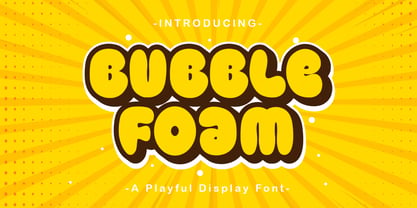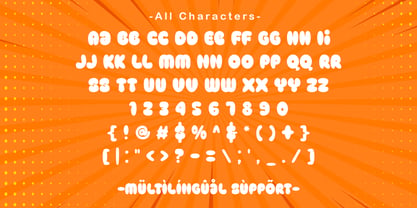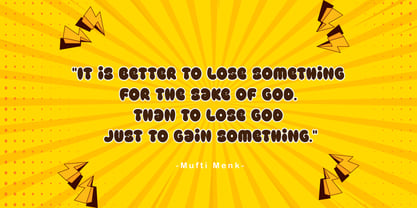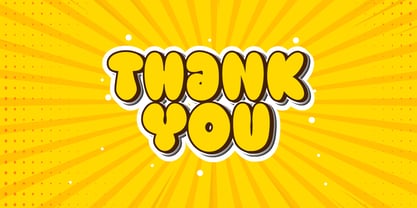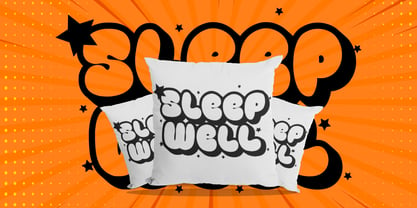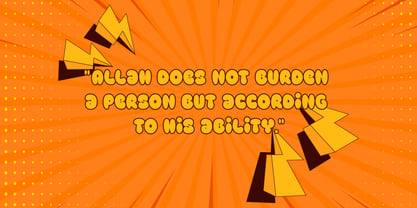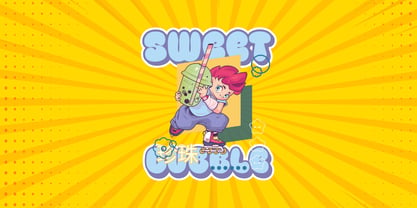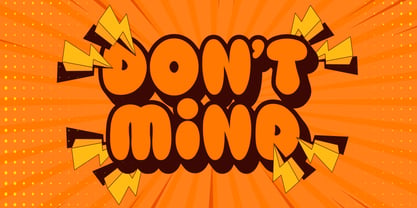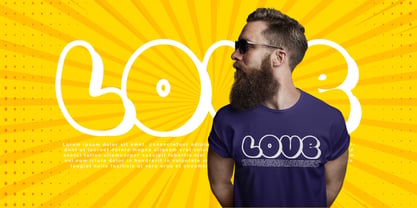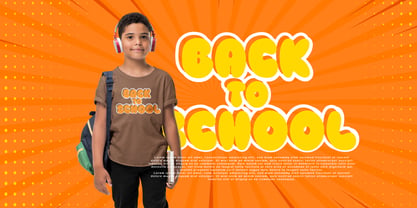
Bubble Foam
by Patlot Digital Studio
The Bubble Foam Font Family was designed by Gugun Gunawan and published by Patlot Digital Studio. Bubble Foam contains 1 styles. More about this family
Bubble Foam is a bubble display font perfect for a variety of design needs, shining brightly in any design. Ideal for trendy t-shirt graphics, captivating bulletin board displays, innovative art projects, cheerful stickers, inspiring quotes, stylish mugs, and incredible sublimation projects. “Bubble Font” is more than just a font; it serves as a tool, transforming your creative vision into a true masterpiece.
Designers: Gugun Gunawan
Foundry: Patlot Digital Studio